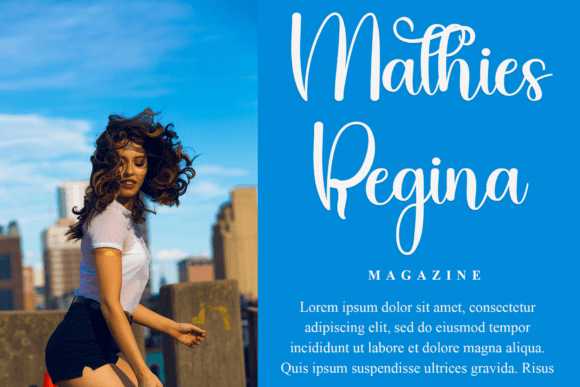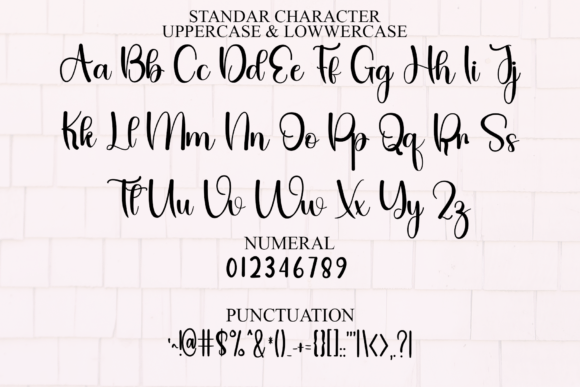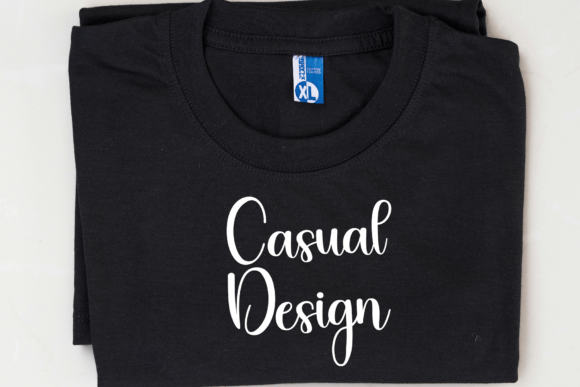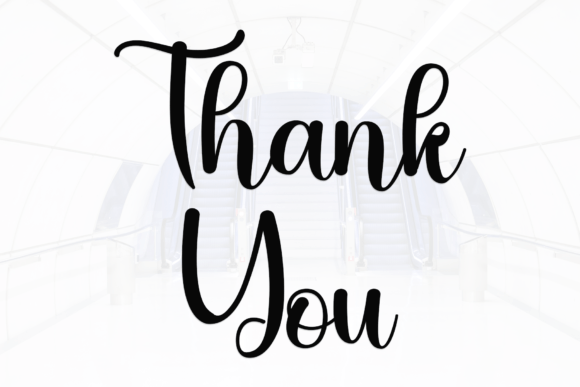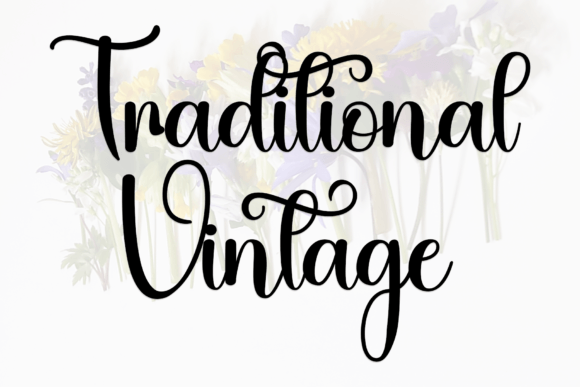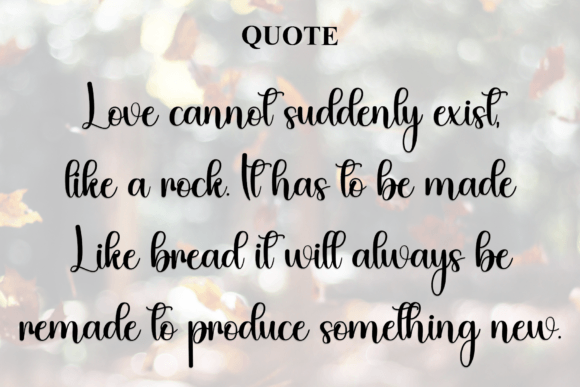
The Futuristic Font: A Designer’s Dream Come True
I’ll never forget the time I was working on a logo design project for a tech startup, and I was struggling to find the perfect font. The client wanted something modern, elegant, and sophisticated, but also unique and eye-catching. After hours of scouring font websites and trying out different combinations, I stumbled upon the Futuristic font. And let me tell you, it was love at first sight! 💕
This beautiful and refined handwritten font has a classy, elegant, and modern look that can be used for a wide range of design projects, from logos and branding to invitations, stationery, wedding designs, social media posts, and more. In this article, I’ll share my experience with the Futuristic font, its features, and how to use it to take your designs to the next level.
- ✨ The Futuristic font has a unique and elegant handwritten look that’s perfect for designs that require a touch of sophistication.
- 💻 The font is highly versatile and can be used for a wide range of design projects, from digital to print.
- 🎨 The font comes with a range of OpenType features, including stylistic alternates, swashes, and ligatures, which give you plenty of creative options.
While the Futuristic font is amazing, there are a few things to keep in mind: 🤔
- ⚠️ The font may not be suitable for very small text sizes, as some of the details may get lost.
The Designer Inspiration Behind Futuristic Font
The Futuristic font was designed by a talented typographer who wanted to create a font that would capture the essence of modernity and elegance. The designer’s inspiration came from a range of sources, including:
- The futuristic architecture of the 21st century, with its sleek lines and minimalist aesthetic.
- The elegant handwriting of calligraphers and lettering artists.
- The bold and innovative typography of tech startups and modern brands.
Q: What is the Futuristic font?
A: The Futuristic font is a beautiful and refined handwritten font with a classy, elegant, and modern look.